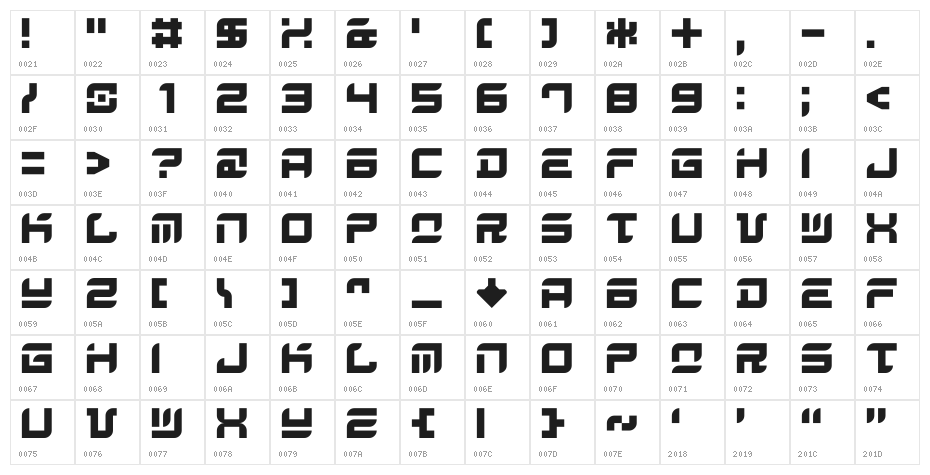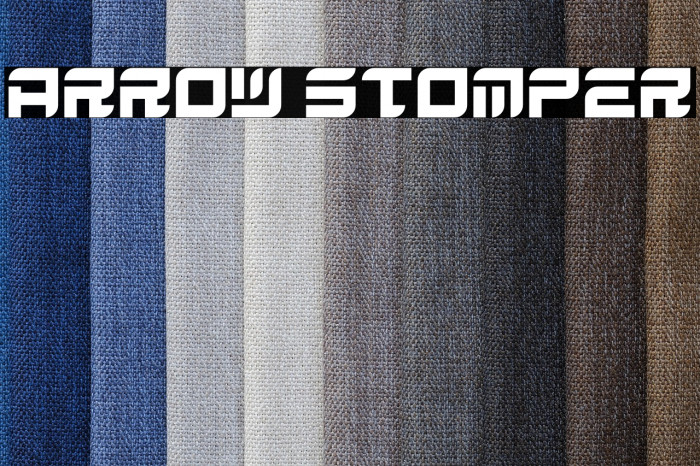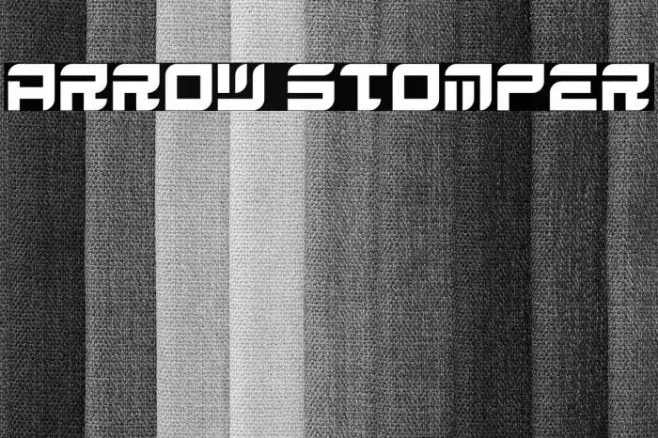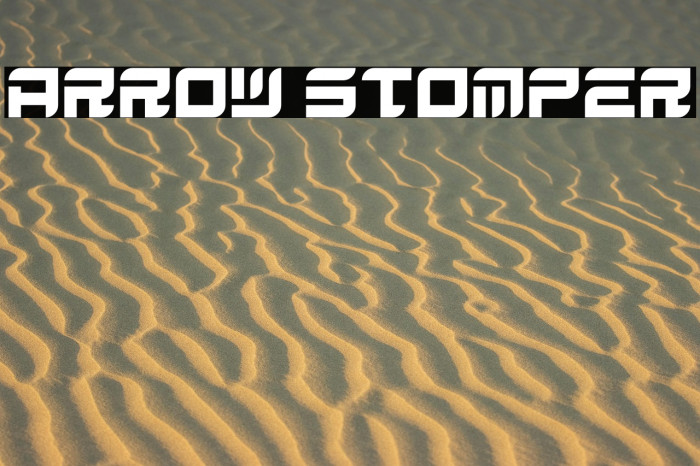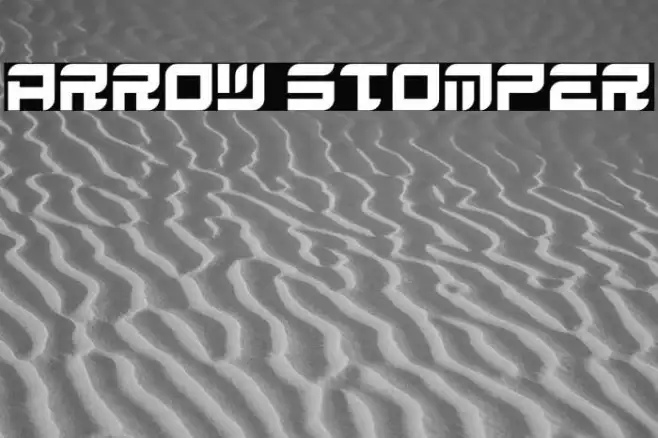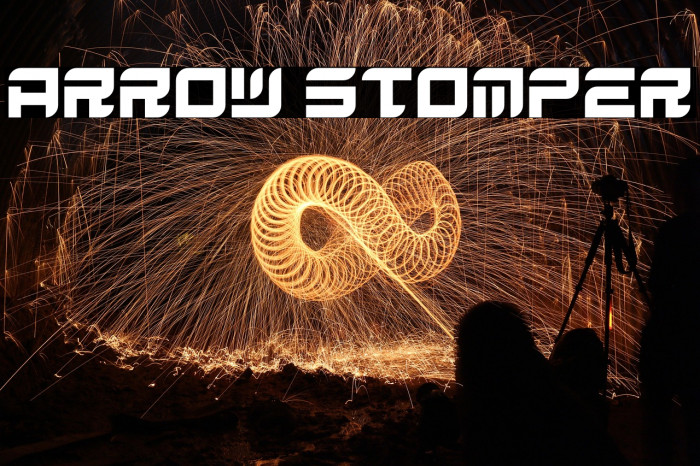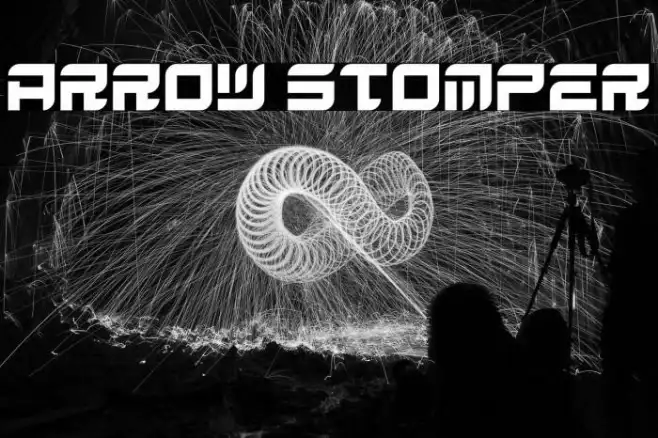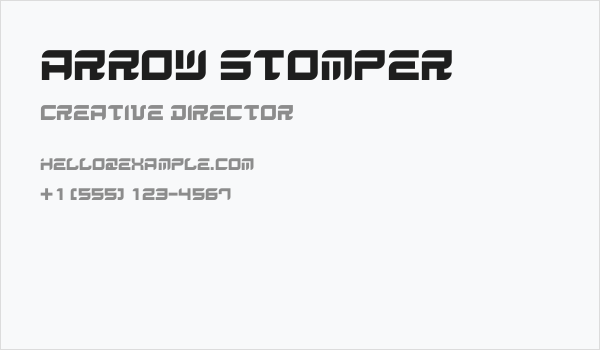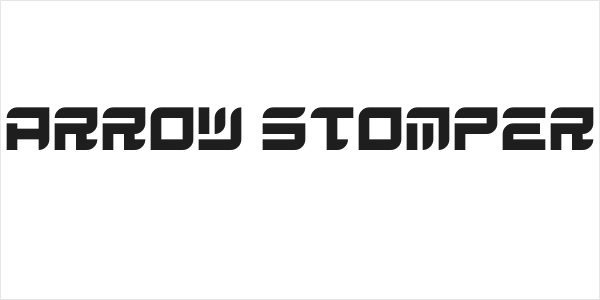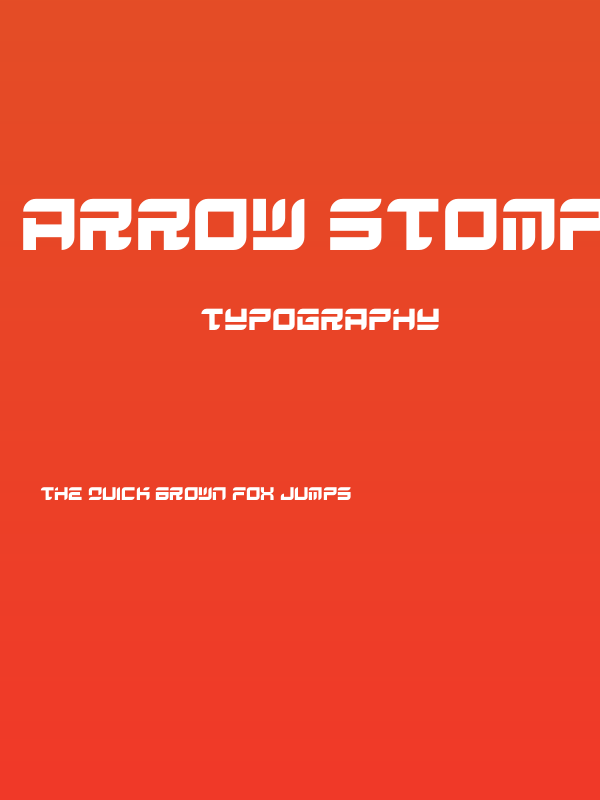
Arrow Stomper Font
Arrow Stomper Description
This font features a bold, futuristic design with geometric shapes and sharp angles. The characters are constructed with a blocky, stencil-like appearance, giving it a strong, industrial feel. The uppercase and lowercase letters maintain a consistent style, with unique cuts and edges that create a sense of movement and direction. The numbers and special characters follow the same design principles, ensuring uniformity across all glyphs. The font's distinct style makes it ideal for projects that require a modern, tech-inspired aesthetic.
| Proposed Projects | Perfect for branding, logos, video game graphics, and sci-fi themed projects. |